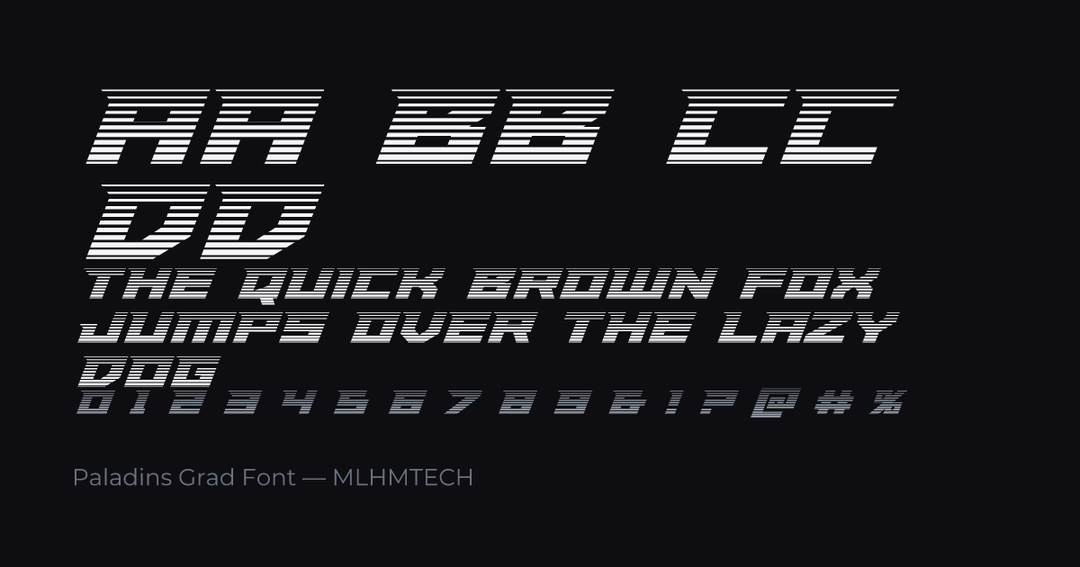
Paladins Grad Font
Paladins Grad is a bold, modern display font ideal for gaming graphics, logos, and titles. Its strong letterforms make it stand out in any design.
Paladins Grad is a high-impact display font that exudes strength and modernity. Its clean lines and bold weight make it perfect for headlines, logos, and gaming-related designs. Whether you're creating a YouTube thumbnail, a streaming overlay, or a poster, this font adds a professional edge.
Elevate your creative projects with Paladins Grad. Its distinctive style will help your designs stand out and capture attention.